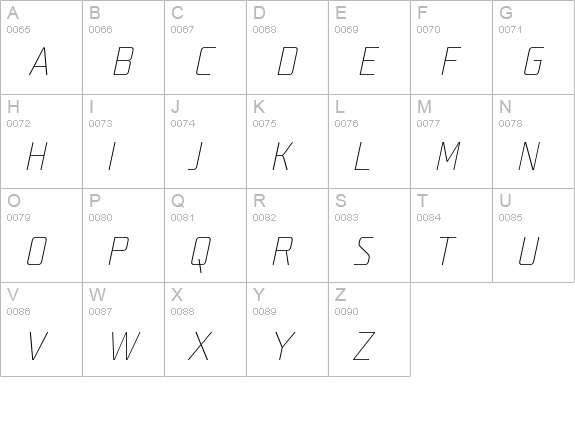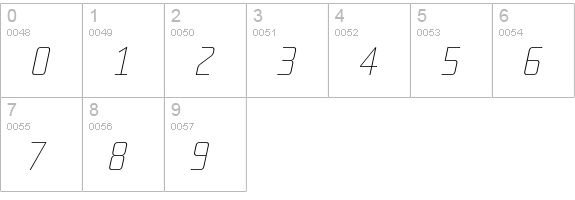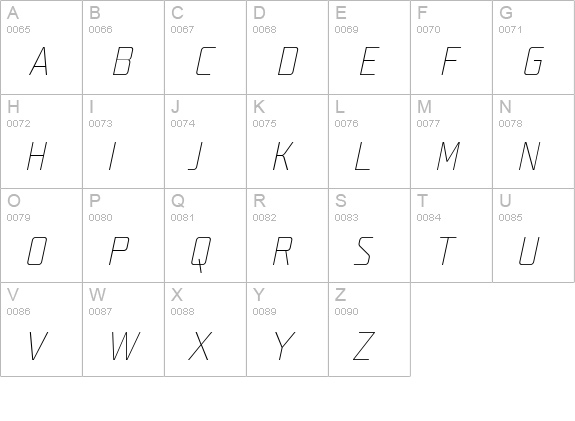
Teuton Weiss Italic is a distinctive, italic variant in the Teuton typeface family \xE2\x80\x94 well suited to design and typography projects.
Introducing Teuton Weiss Italic, a stunning font that seamlessly combines elegance and classic charm. With its delicate curves and graceful strokes, this font exudes a timeless beauty that is sure to captivate any reader. Designed with meticulous attention to detail, Teuton Weiss Italic is the perfect choice for projects that require a touch of sophistication. Whether used for formal invitations, branding materials, or editorial designs, this font will effortlessly elevate any composition to new heights of elegance. What sets Teuton Weiss Italic apart is not only its striking aesthetics but also its accessibility. This font is freely available to download at FontsMarket.com, allowing designers and enthusiasts alike to effortlessly incorporate its refined beauty into their creative endeavors. Featuring a wide range of characters and ligatures, Teuton Weiss Italic offers endless possibilities for customization. Its versatile nature ensures that it can be used in a variety of contexts, from high-end fashion magazines to luxurious product packaging. As you delve into the world of Teuton Weiss Italic, you will discover a font that not only enhances the visual appeal of your designs but also evokes a sense of sophistication and refinement. Its exquisite details and sleek lines will leave a lasting impression on your audience, making it a valuable addition to any typographic collection. So, don't miss out on the opportunity to experience the beauty of Teuton Weiss Italic. Download it freely from FontsMarket.com and let its timeless elegance elevate your designs to new horizons.